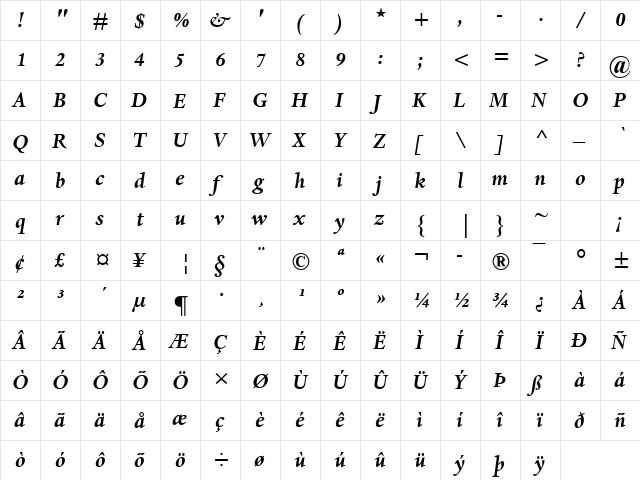
Dante MT Bold Italic
| Foundry | Agfa Monotype Corporation |
Design Context for Dante MT Typeface
Dante MT is a composed and adaptable typeface that performs quietly and consistently across a wide range of design contexts. The slanted form adds forward momentum and visual energy. The heavy weight commands attention and anchors typographic hierarchies.
Pro Tip: Try Dante MT for annotation and caption copy alongside an upright companion — the contrast in angle creates a dynamic but ordered typographic system.